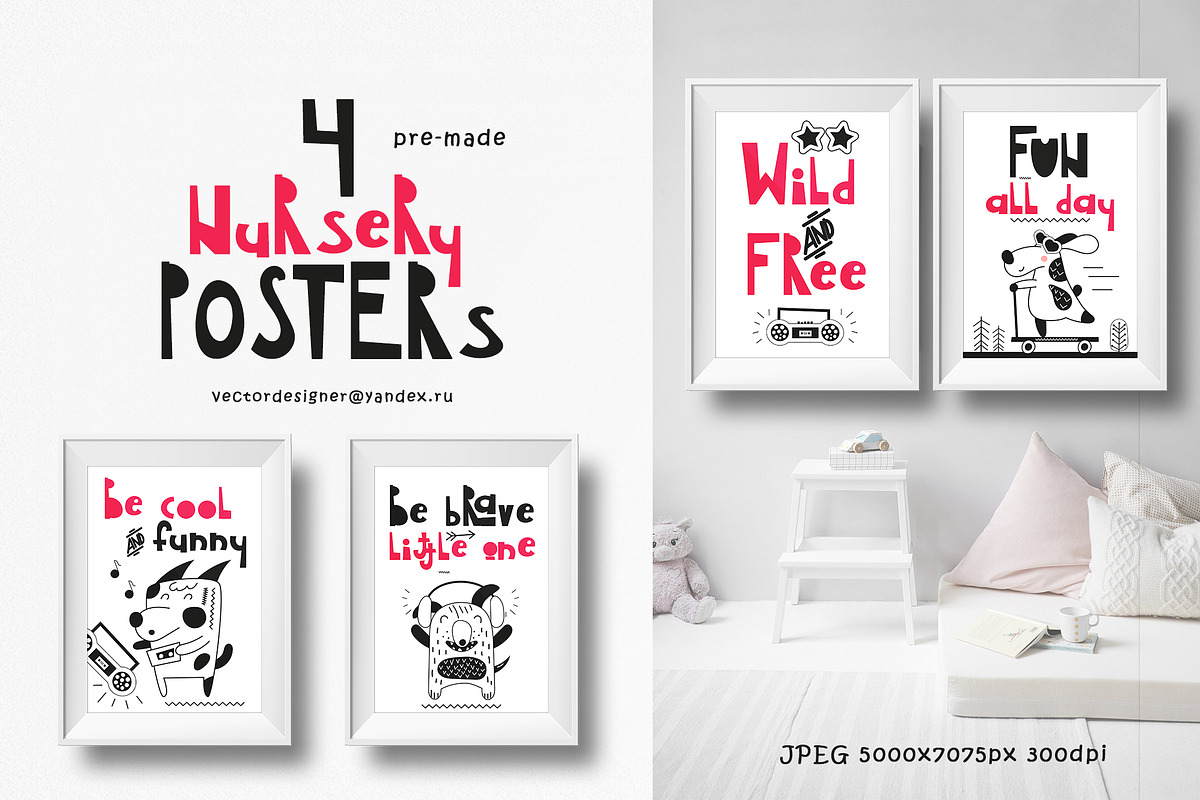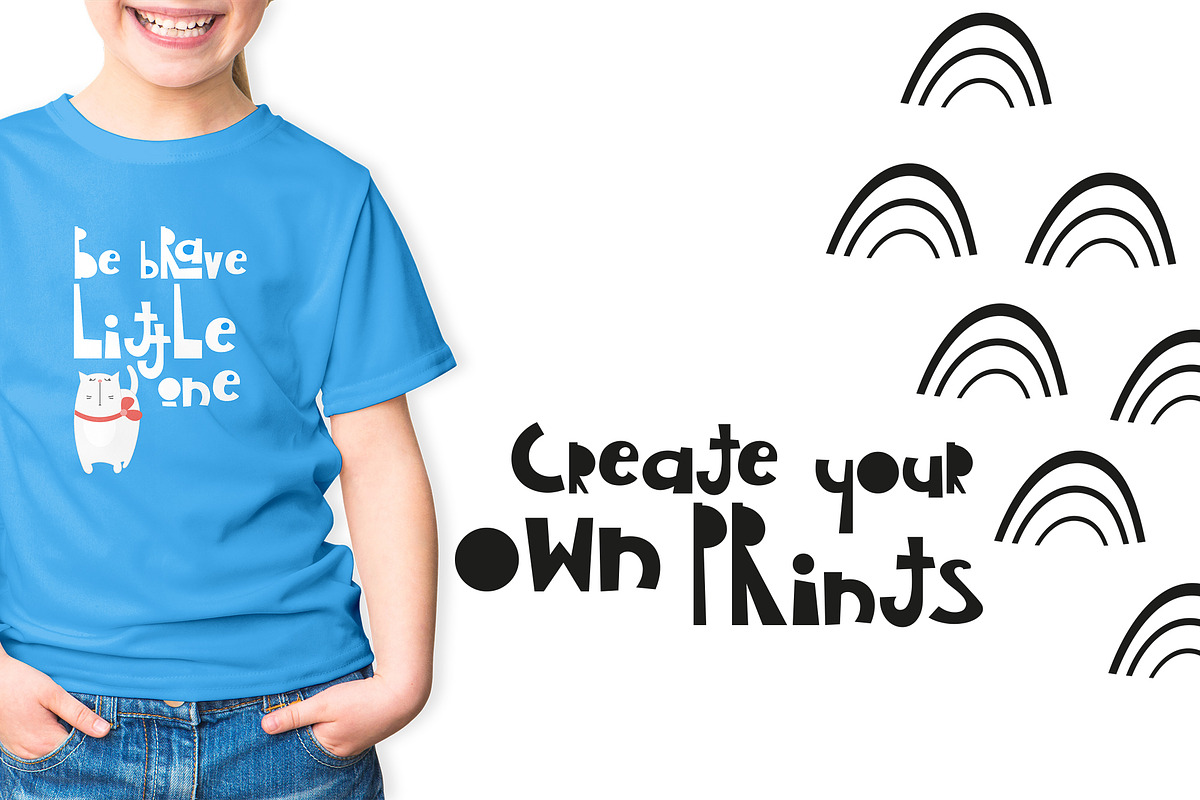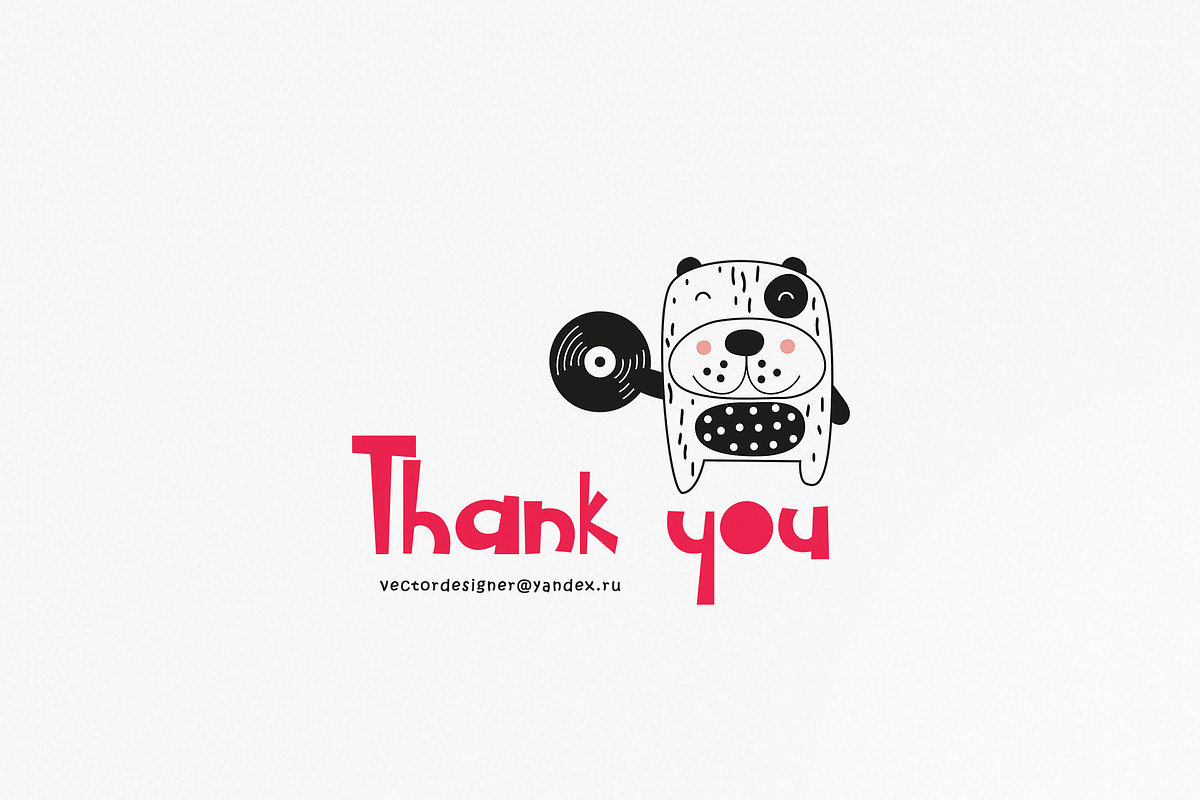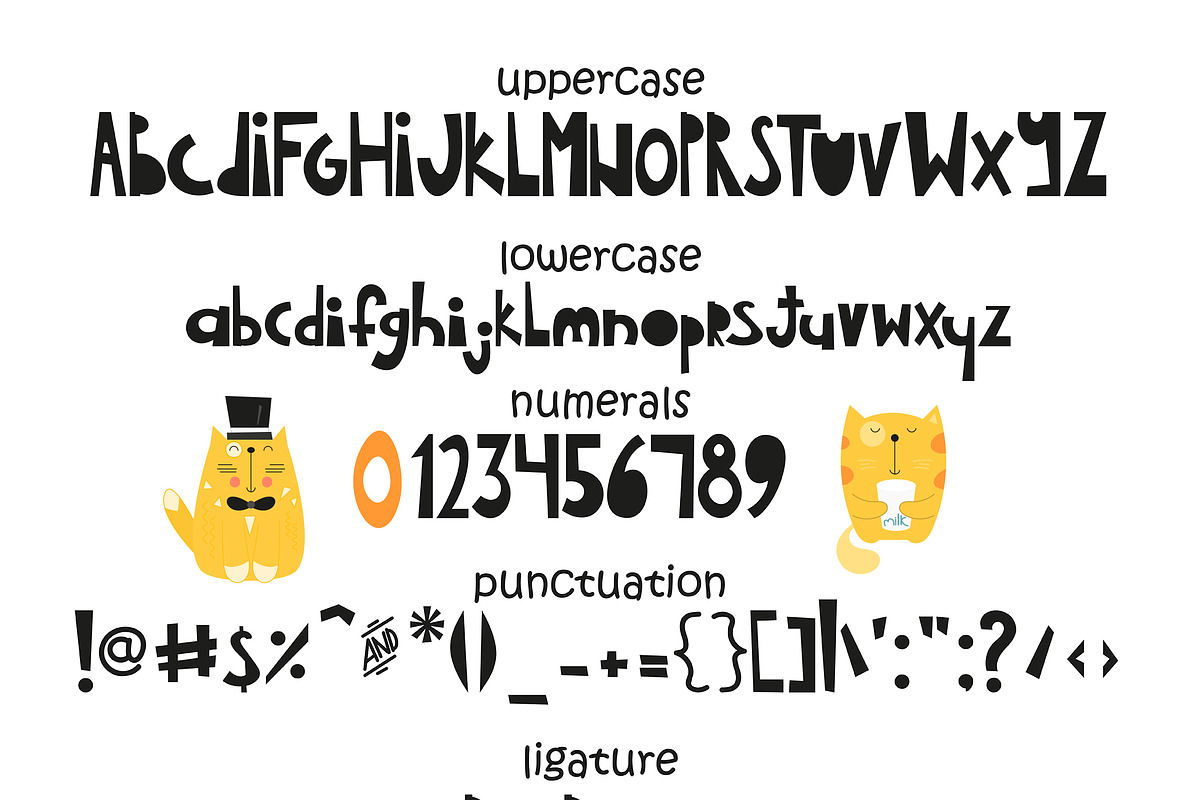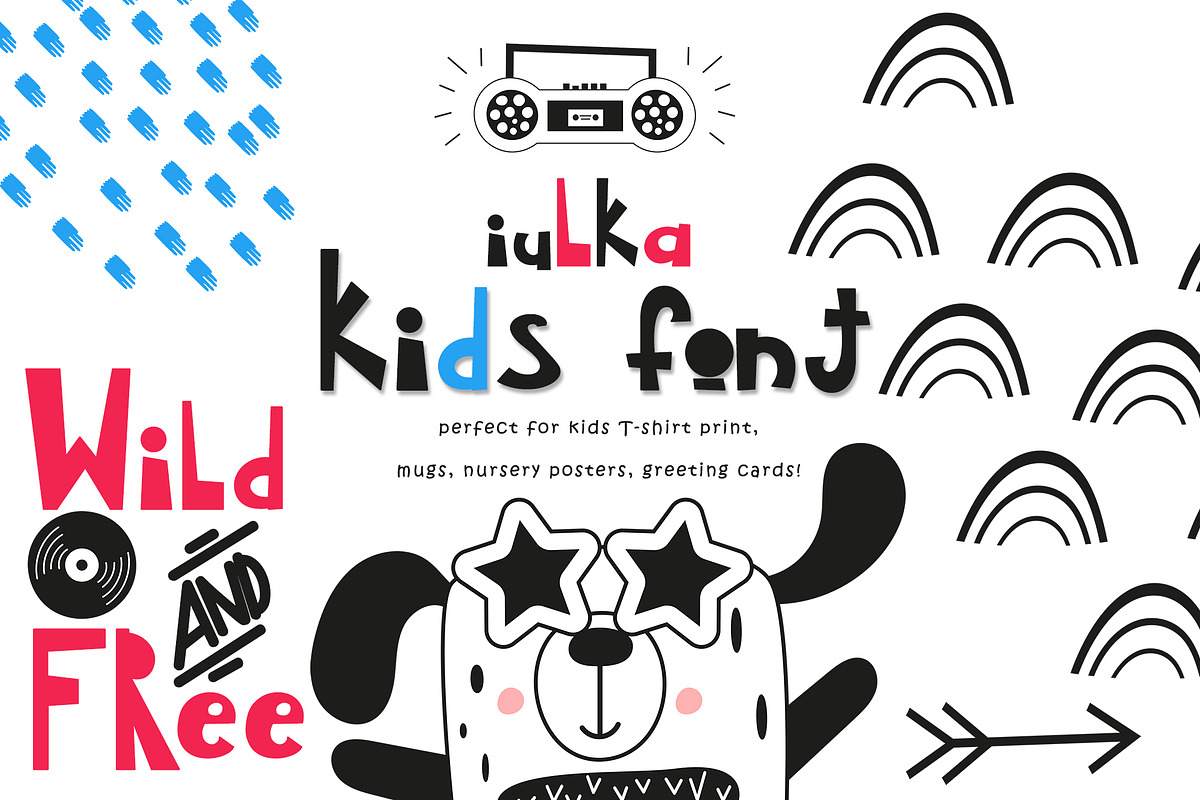
Nursery Art Kids Font "Iulka"
Hey everyone! I represent to your attention Font "Iulka" for kids funny design.
Perfect for nursery posters, quotes, greeting cards, mugs, bags, t-shirts and apparel prints, logos, magnets, notebooks, prints, posters and more!
BONUS - 4 pre-made nursery posters with cool dogs and this font.
You can create nursery posters, baby clothing and textile design!